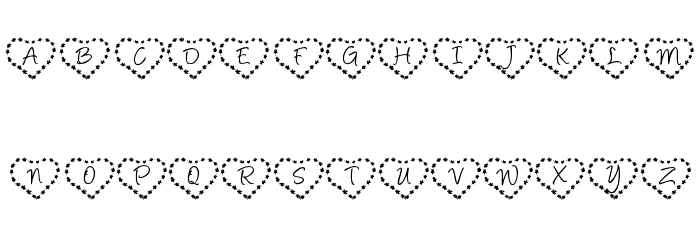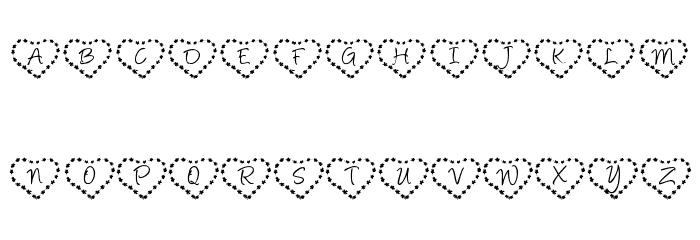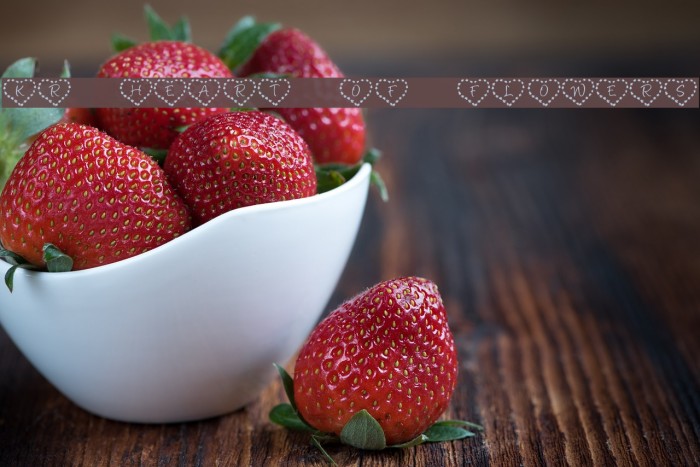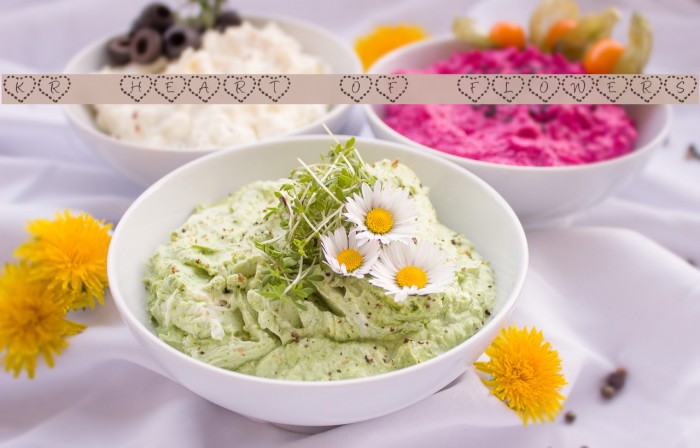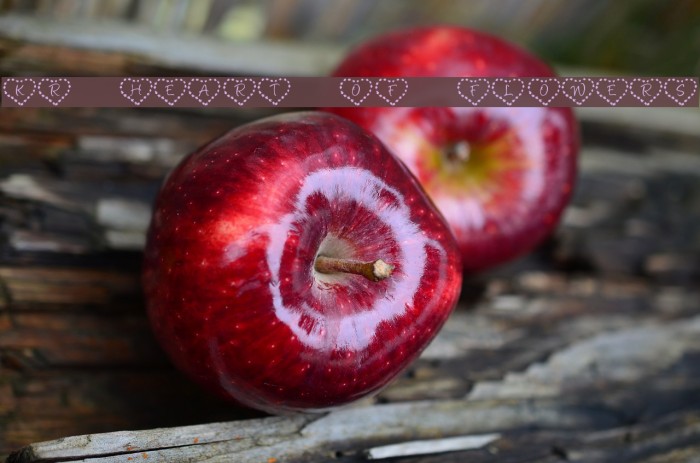
KR Heart of Flowers Font
This decorative font features each character enclosed within a heart shape, adorned with a floral pattern. The letters are elegantly scripted, giving a whimsical and romantic feel. The floral heart design adds a playful and charming touch, making it ideal for projects that require a touch of elegance and creativity. The font maintains a consistent style across uppercase, lowercase, and numerical characters, ensuring a cohesive look. The intricate details of the floral patterns enhance the visual appeal, making it suitable for special occasions and themed designs.
A decorative font with letters enclosed in floral heart shapes, offering a whimsical and romantic style.
- Proposed Projects: Ideal for wedding invitations, greeting cards, Valentine's Day promotions, and decorative posters.
- Use Case: Headlines, Logos, Invitations